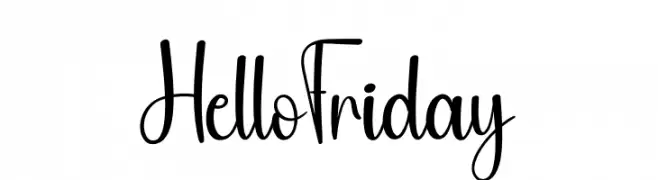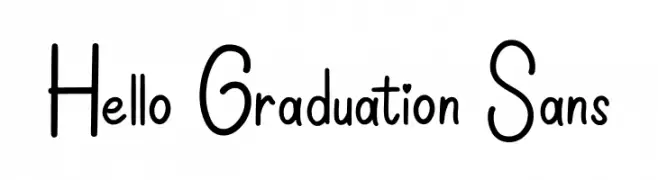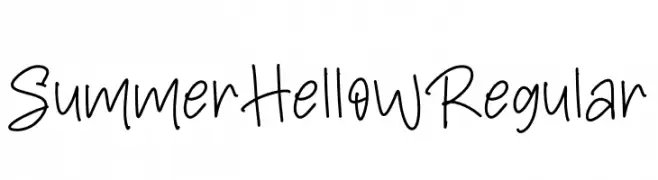
( Fonts by Scratchones )
Playful, bold handwritten font.
( Fonts by Damarletter )
Elegant handwritten script font.
( Fonts by Letterafa Studio )
Playful handwritten font with a casual style.
( Fonts by Andi Moz )
Playful handwritten script font.
( Fonts by Bilqis Studio )
Playful, hand-drawn display font with thick, rounded strokes.
( Fonts by Bilqis Studio )
A bold, hand-drawn font with bone-inspired, whimsical shapes.
( Fonts by Bilqis Studio )
A quirky, decorative hand-drawn font with playful curls and irregular shapes.
( Fonts by ONG Type )
Casual handwritten font with rounded, playful forms.
( Fonts by Rissyletter Studio )
Playful, handwritten sans-serif with tall, narrow letters.
( Fonts by Rissyletter Studio )
A graceful, handwritten script with thin lines and flowing forms.